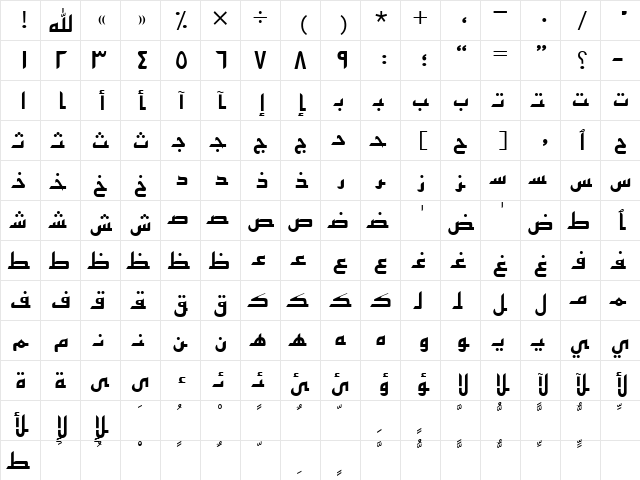
ArabicKufiSSK Bold
Design Context for ArabicKufiSSK Typeface
ArabicKufiSSK is a composed and adaptable typeface that performs quietly and consistently across a wide range of design contexts. The heavy weight commands attention and anchors typographic hierarchies.